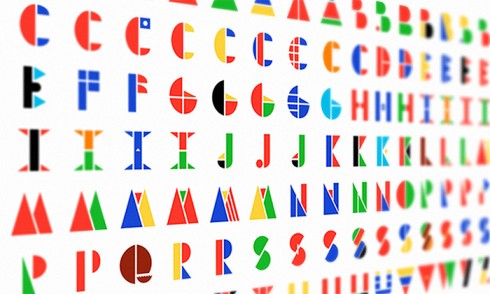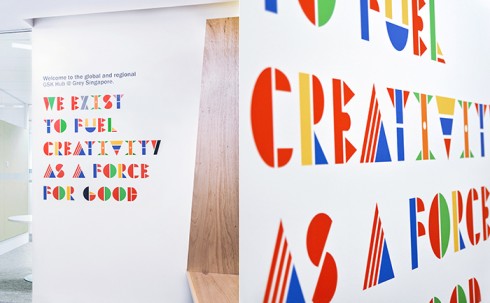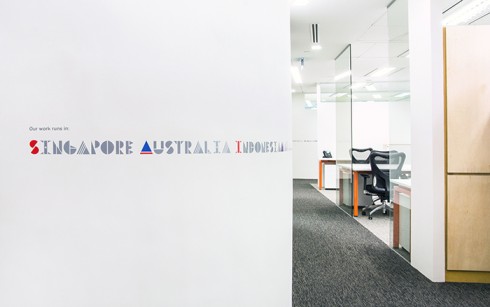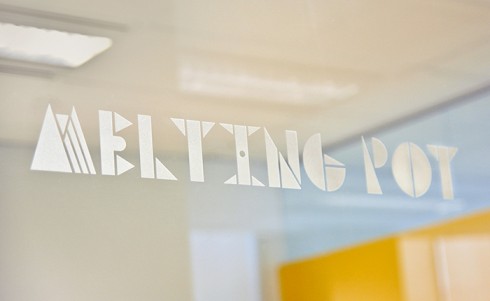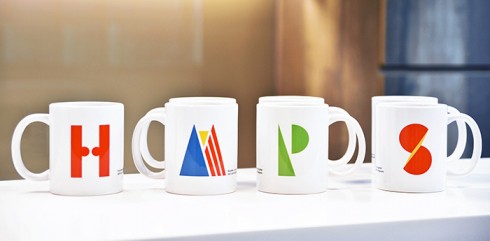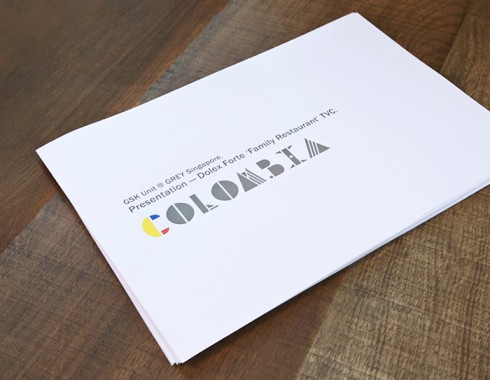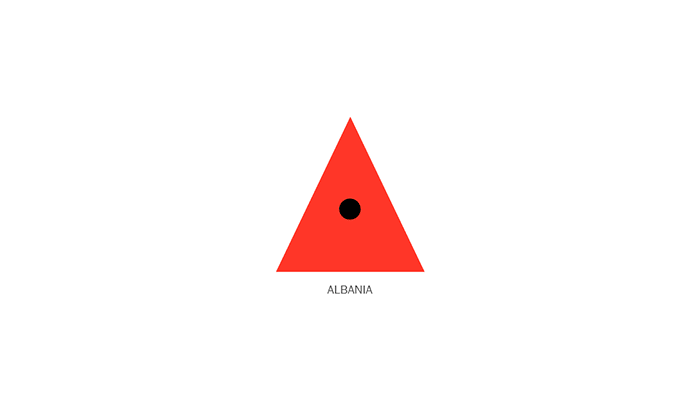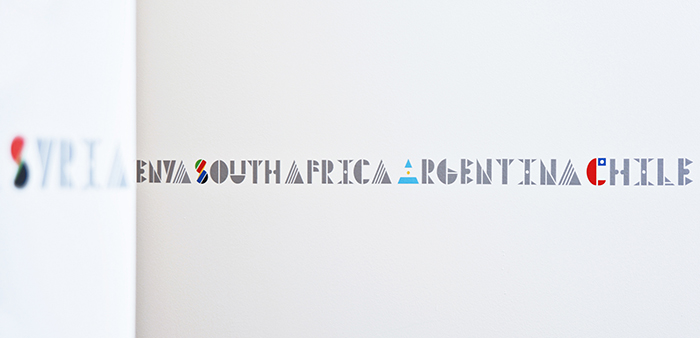
Multinational Typeface
Worlds first multinational typeface:
Much has been written and said about the needs of our global economy. In fact, heated debates have taken and are still taking place about the dichotomy of global versus local. Here’s our take on it all: when you set up a new hub to work with the rest of the world, it kind of makes sense to install a multinational team to do so. Not just a local setup running a global account, but a team that has a clue about the world out there.
We did just that. And we invented a design tool to brand this team, and to communicate our mindset and vision — the world’s first multinational typeface.
Executive creative director, Asia Pacific: Till Hohmann
Creative director: Antonio Bonifacio
Copywriter: Till Hohmann
Art director: Luis Fabra, Nasheet Shadani
Typographer: Luis Fabra
Producer: Bobby Koh